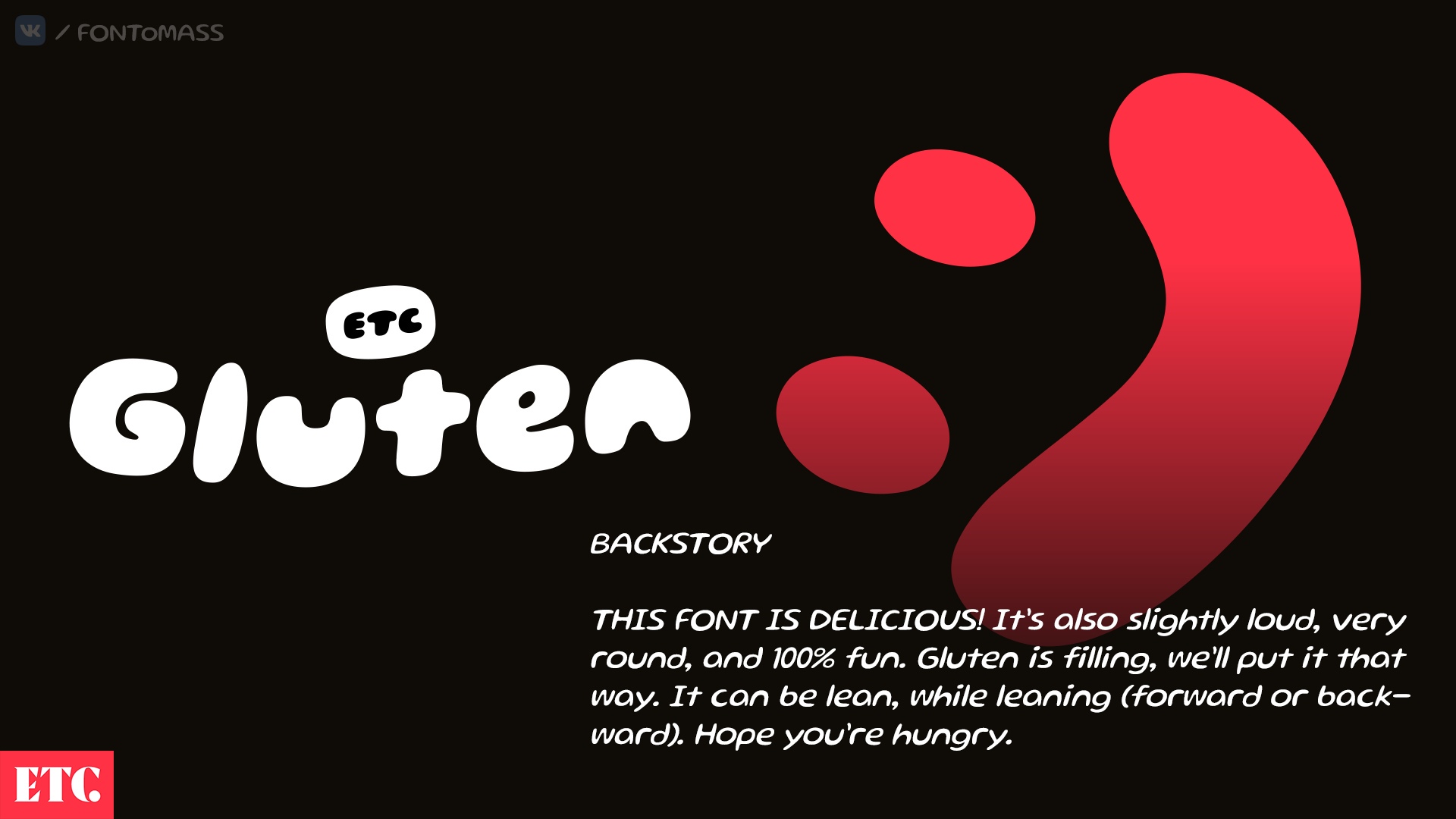
ETC Gluten Font
ETC Gluten Font is perfect for bakery branding, artisan bread packaging, wheat-based product marketing, gluten-conscious restaurant menus, organic grain communications, healthy eating campaigns, nutritional awareness materials, dietary information displays, food sensitivity resources, and conscious consumption educational projects.
What makes ETC Gluten Font so exciting is its thoughtful embodiment of food consciousness and nutritional awareness that captures the growing importance of ingredient transparency and dietary mindfulness through carefully crafted typography. This consciously designed typeface features organic letterforms with grain-inspired proportions and nutrition-focused character variations that immediately convey awareness, health consciousness, and the fundamental importance of understanding what we consume. The font's mindful construction and health-aware aesthetic create an instant sense of nutritional responsibility and dietary intelligence, making it ideal for projects that need to communicate food awareness, ingredient transparency, and the life-enhancing power of conscious eating to audiences seeking meaningful dietary information and authentic nutritional guidance.
The ETC Gluten Font family typically includes multiple conscious weights and nutritional styles, often featuring light, regular, and bold variations along with healthfully crafted italic versions. Food-conscious font collections frequently offer additional dietary elements such as grain symbols, nutrition ornaments, and health-focused decorations that enhance the awareness-driven aesthetic and provide designers with comprehensive tools for creating genuinely informative and nutritionally responsible communications.
The nutritional nature of ETC Gluten Font makes it particularly effective for targeting demographics that prioritize dietary awareness and ingredient consciousness in their food choices and lifestyle decisions. Health marketers and nutritional educators will find this font especially valuable for materials that must establish immediate dietary credibility and connect with audiences seeking authentic nutritional information and meaningful food consciousness.
What sets ETC Gluten Font apart is its ability to convey nutritional awareness while maintaining the approachability necessary for effective health and food communication. This balanced characteristic makes it suitable for both serious dietary education applications and accessible food consciousness contexts where projecting nutritional expertise and maintaining consumer-friendly appeal must work together harmoniously.
Professional designers recognize that ETC Gluten Font brings invaluable nutritional credibility to projects across industries including health food production, dietary education, nutritional consulting, and conscious food services. Its health-conscious character and awareness appeal make it essential for organizations whose mission centers on promoting dietary consciousness, advancing nutritional education, and creating meaningful connections between food awareness and healthier living.
The thoughtfully crafted nutritional authenticity of ETC Gluten Font ensures consistent health-conscious messaging across all nutrition-focused communication applications while honoring the fundamental importance of ingredient awareness and dietary responsibility in contemporary food culture.